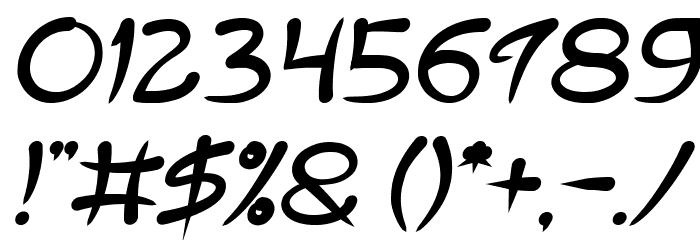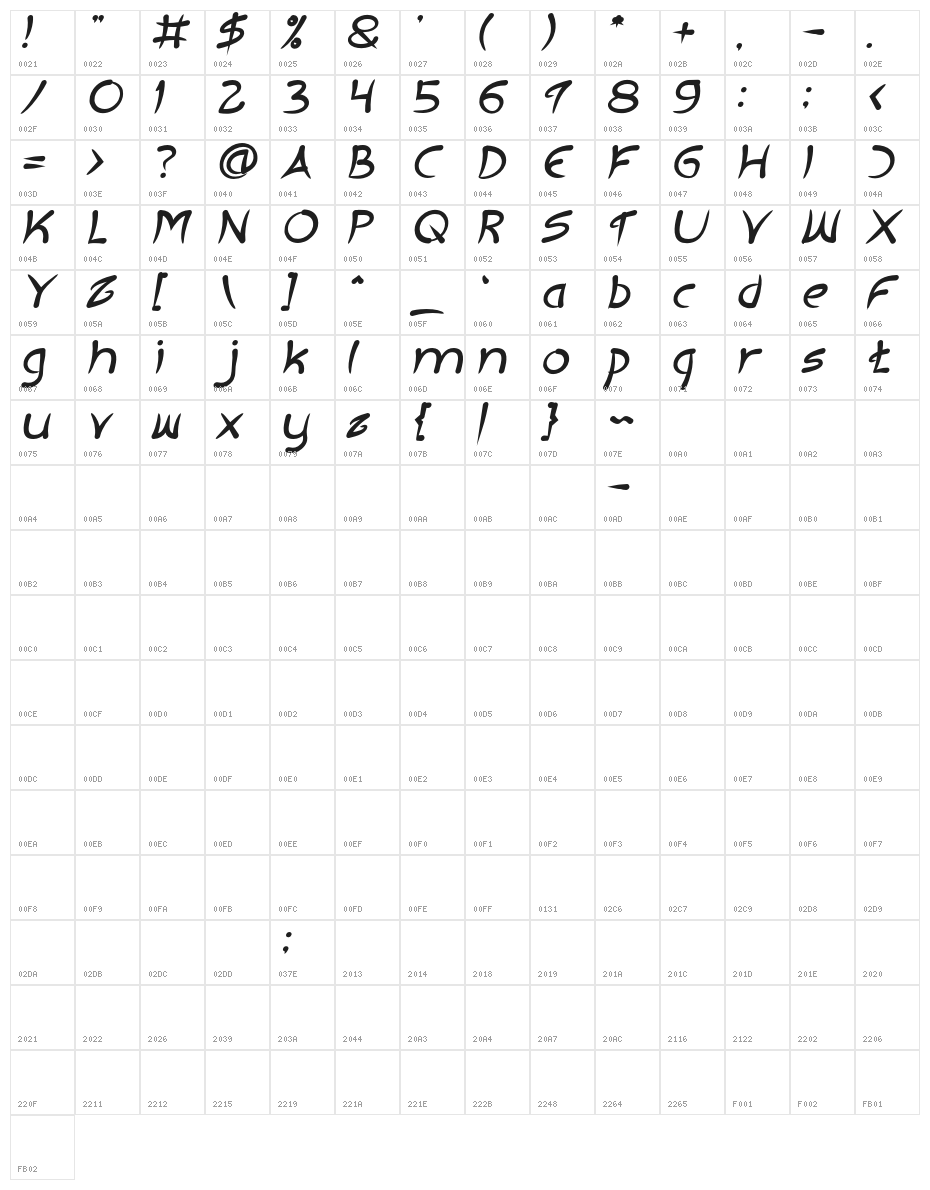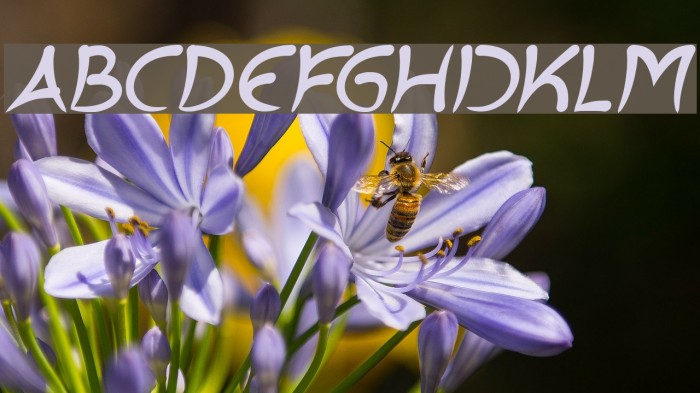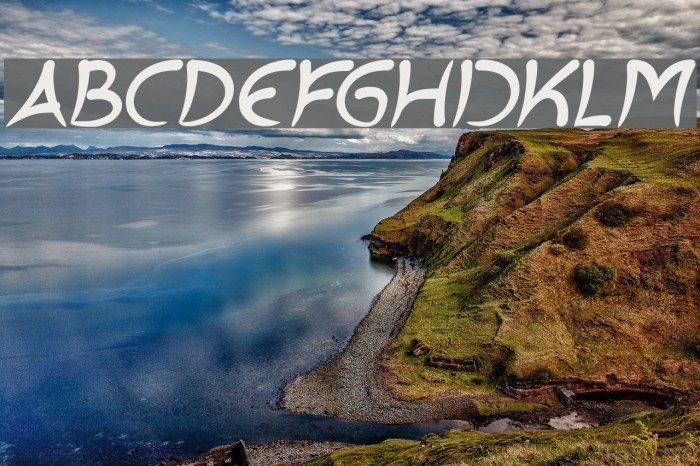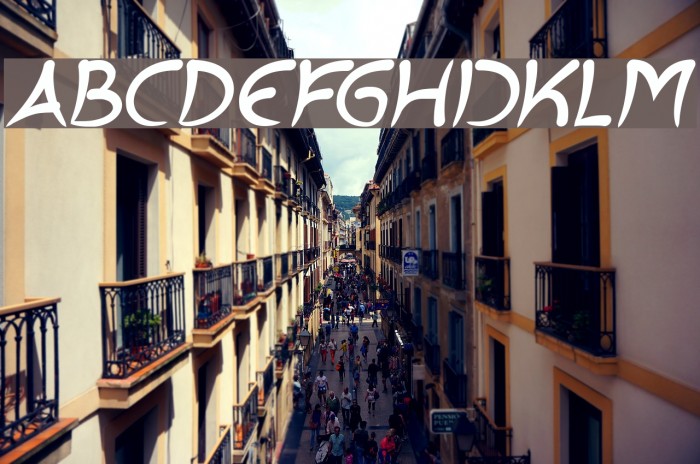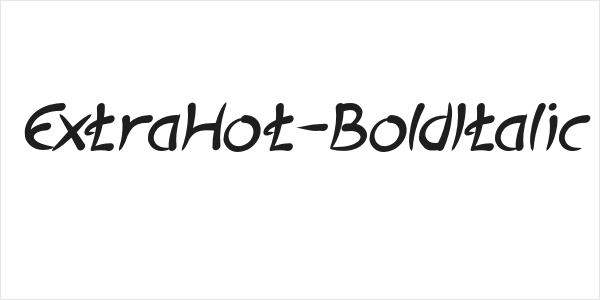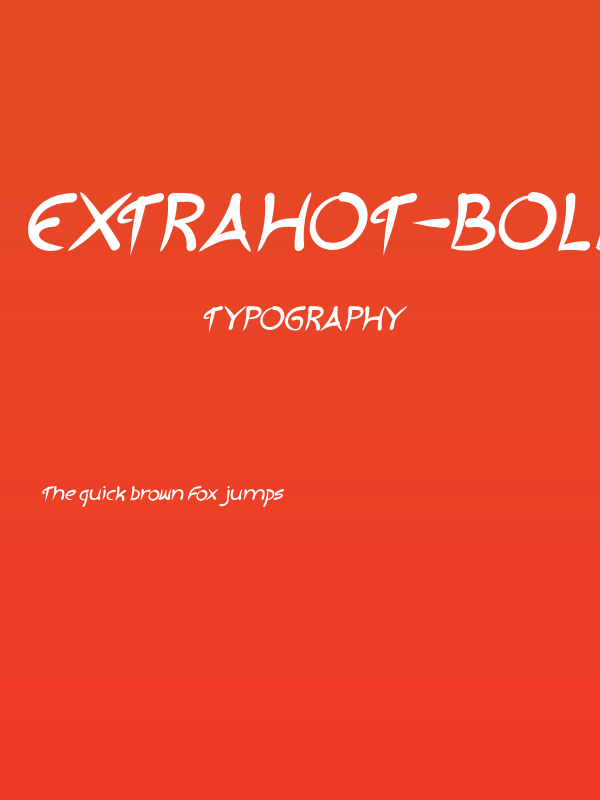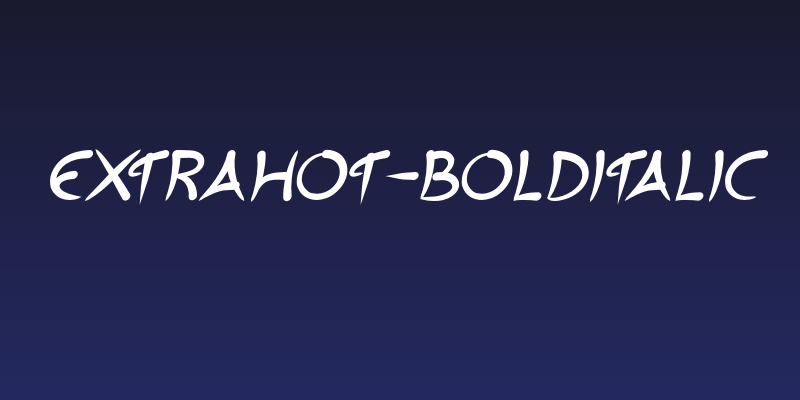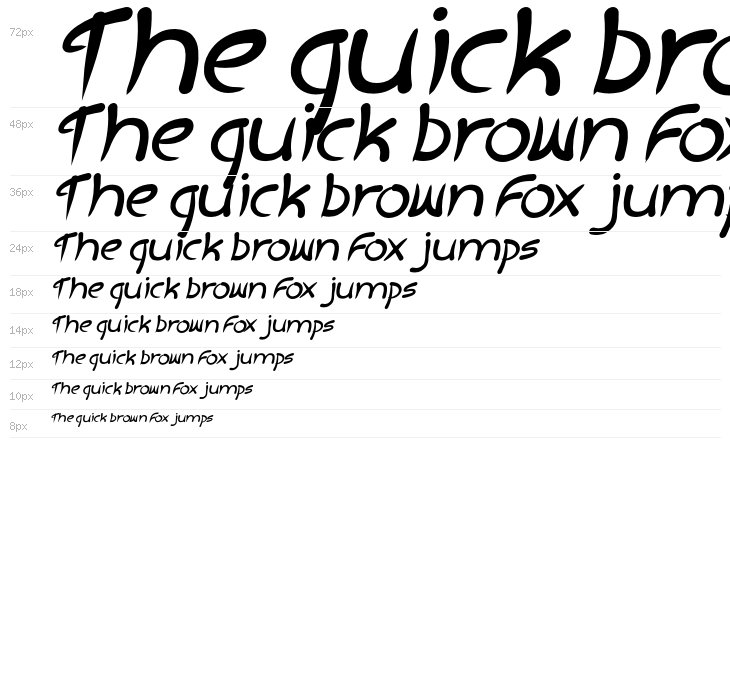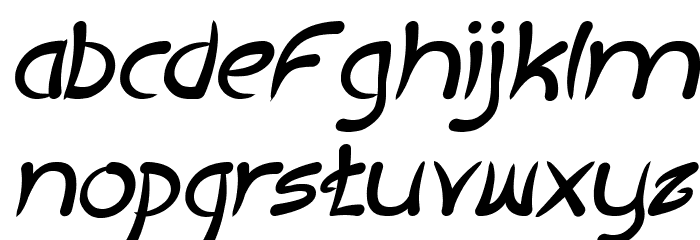
ExtraHot-BoldItalic Font
ExtraHot-BoldItalic Description
This font exudes a dynamic and energetic style with its bold and italicized form. The characters are crafted with a fluid, handwritten touch, giving them a lively and expressive appearance. The strokes are thick and consistent, providing a strong visual impact. Each letter leans forward slightly, enhancing the sense of motion and urgency. The uppercase and lowercase letters maintain a cohesive style, while the numerals and special characters complement the overall aesthetic. This font is ideal for projects that require a bold statement, combining both elegance and a modern flair.